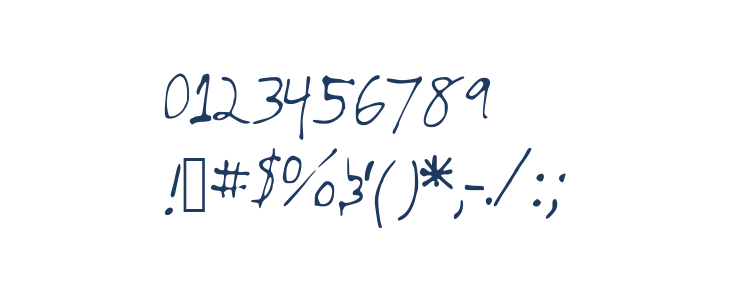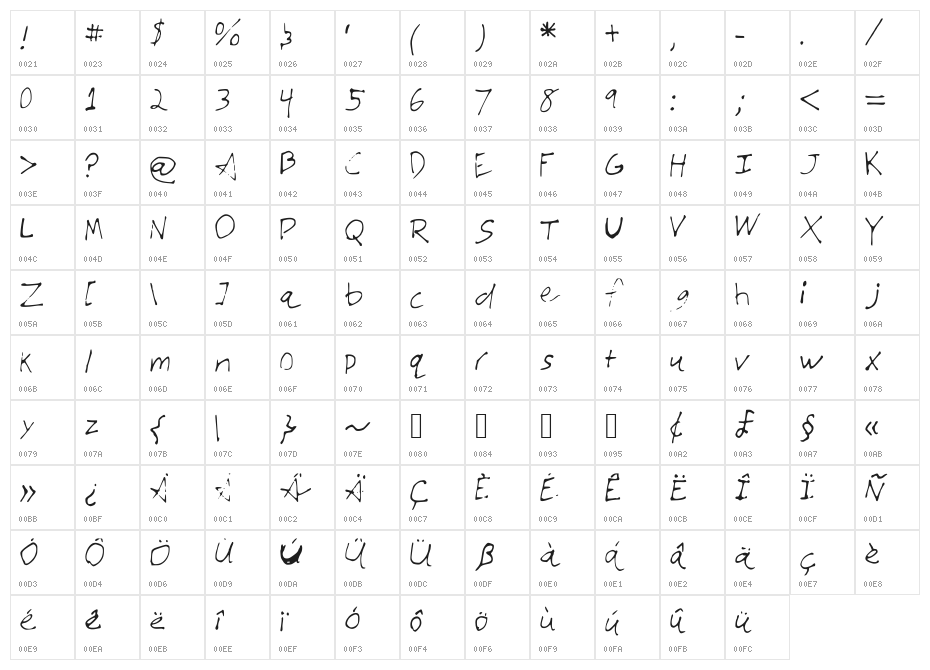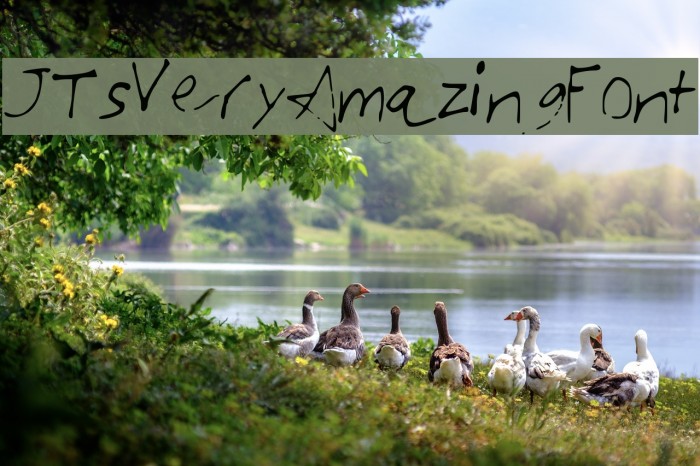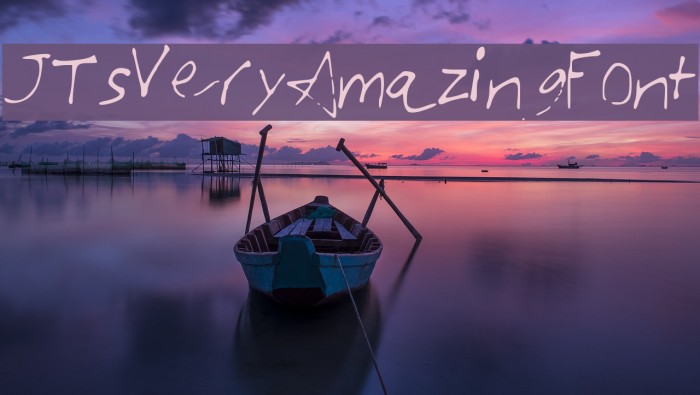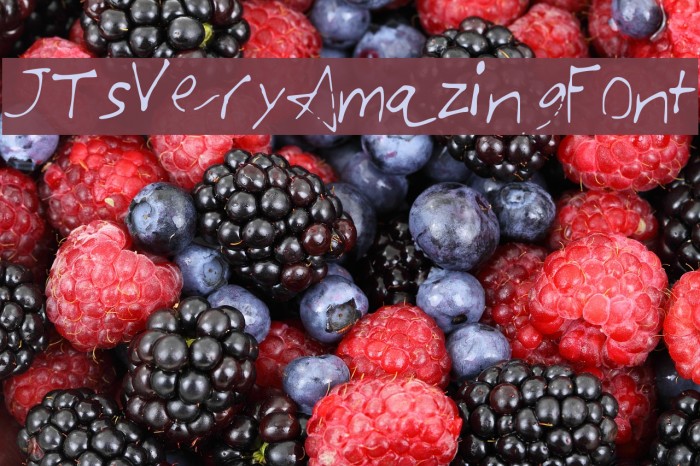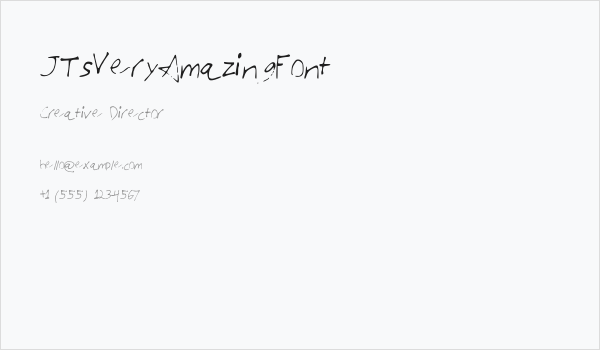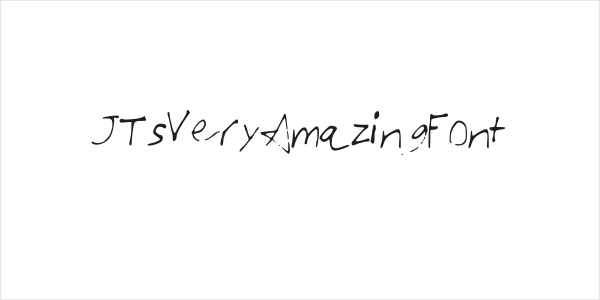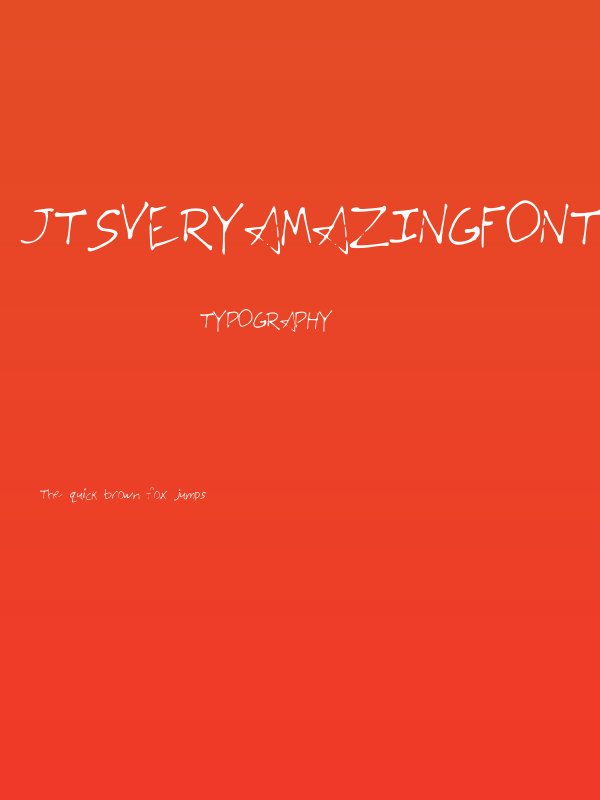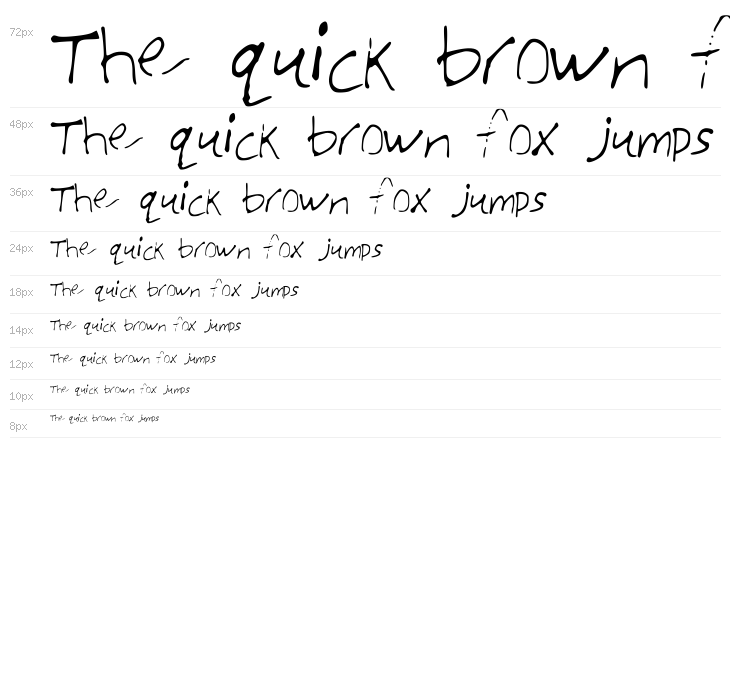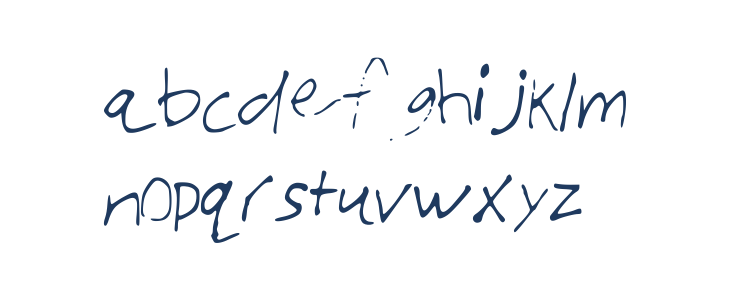
JTsVeryAmazingFont Font
JTsVeryAmazingFont Description
This font exhibits a playful and informal handwritten style, characterized by its irregular strokes and spontaneous appearance. The letters are unevenly sized and spaced, giving it a dynamic and lively feel. The uppercase letters are bold and slightly exaggerated, while the lowercase letters maintain a consistent flow with a casual touch. Numbers and special characters follow the same whimsical design, enhancing the overall cohesive look. This font's unique charm lies in its imperfect lines and quirky angles, making it stand out in any creative project.
| Use Case | Logos, Headlines, Informal Text |
| Proposed Projects | Ideal for creative projects such as greeting cards, children's books, playful branding, and casual invitations. |